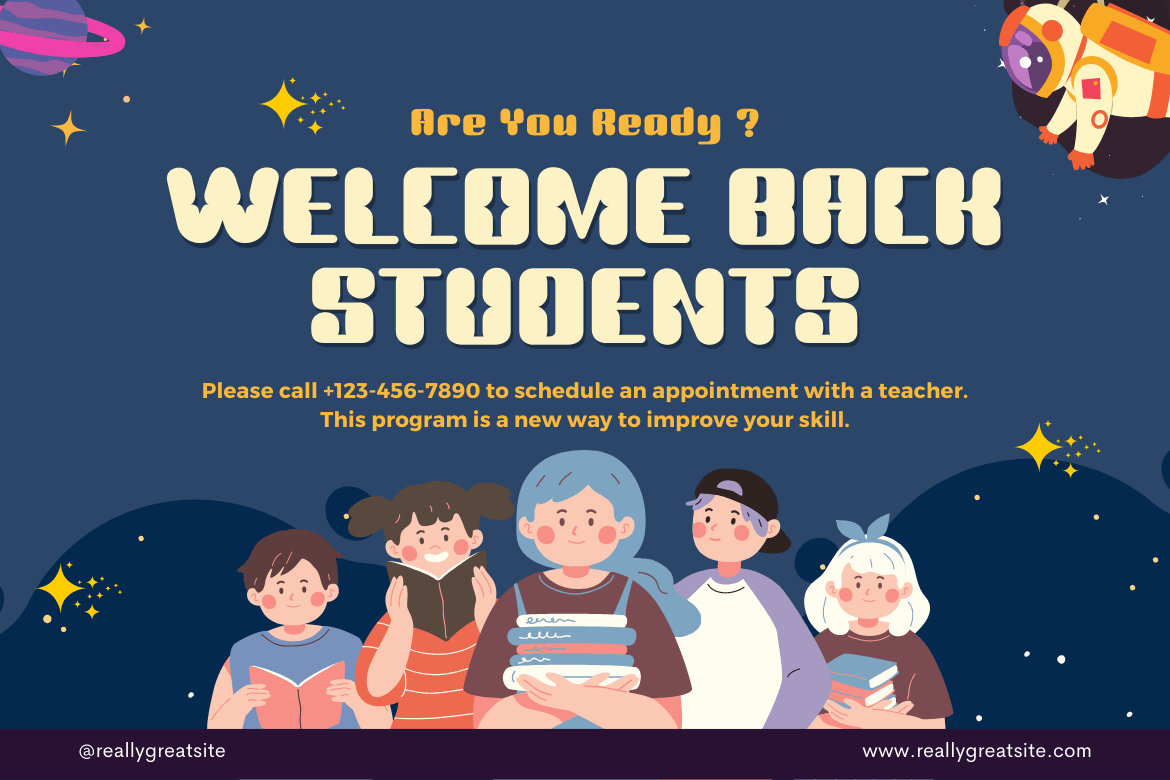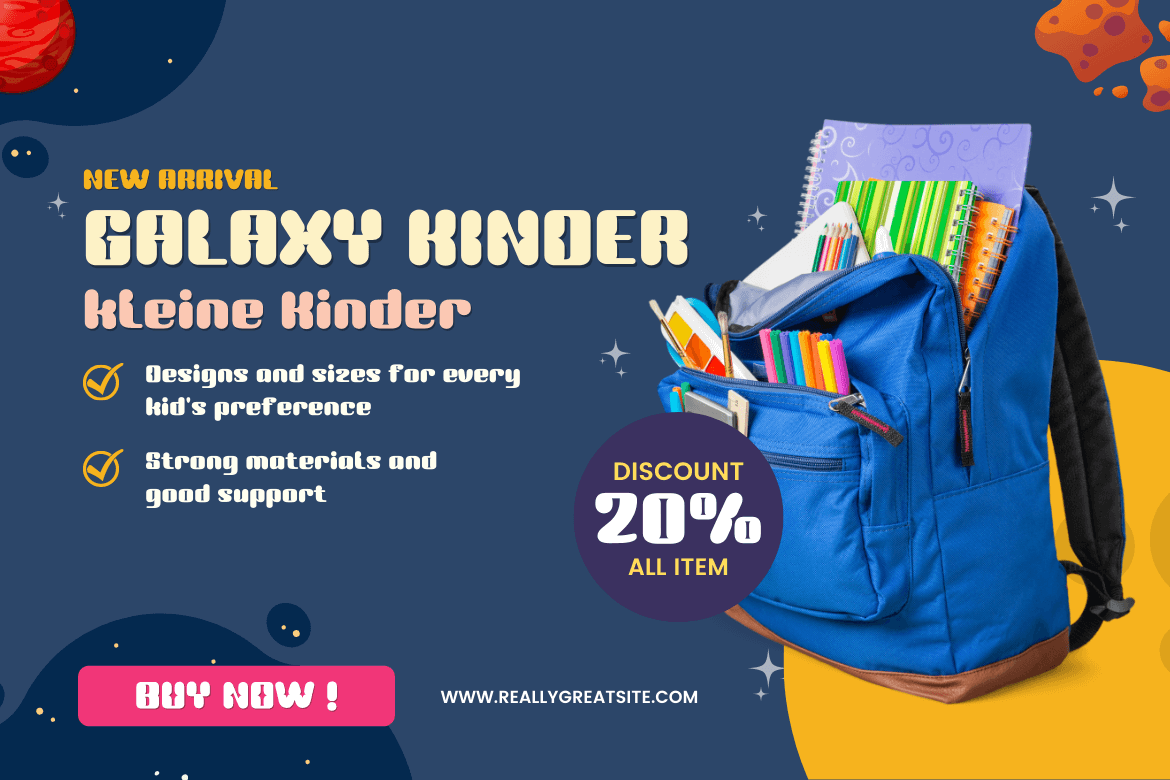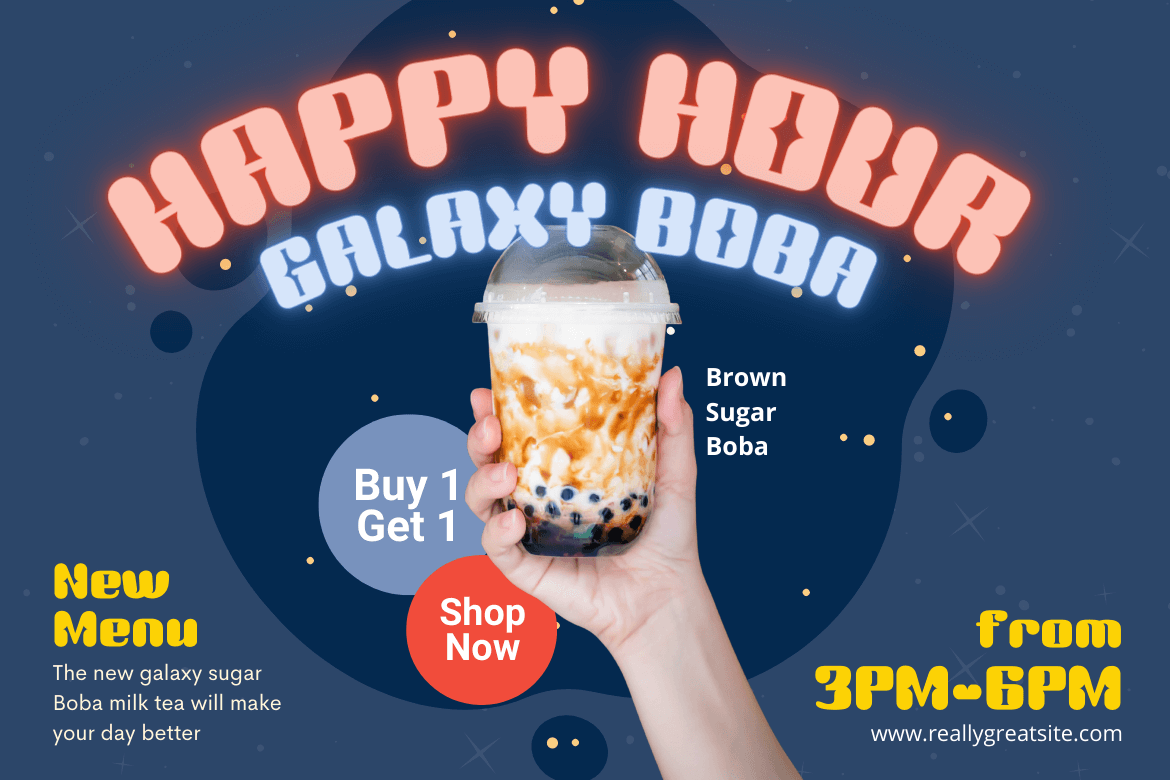
Bakoh Font
Bakoh Display Font
This display font is created in a simple and approachable manner. Every corner of the letters has a beautiful curve, making the letters look harmonious and pleasing to the eye. This design style is suitable for any project.